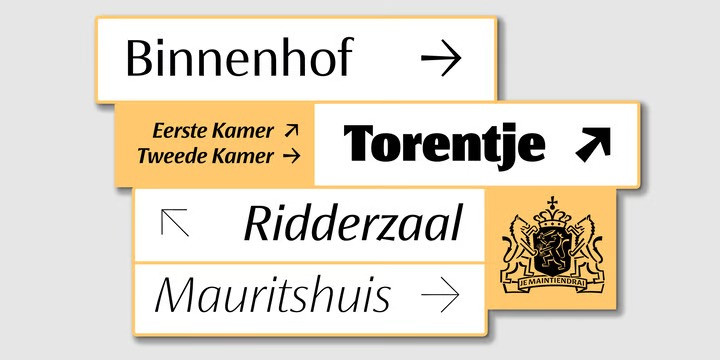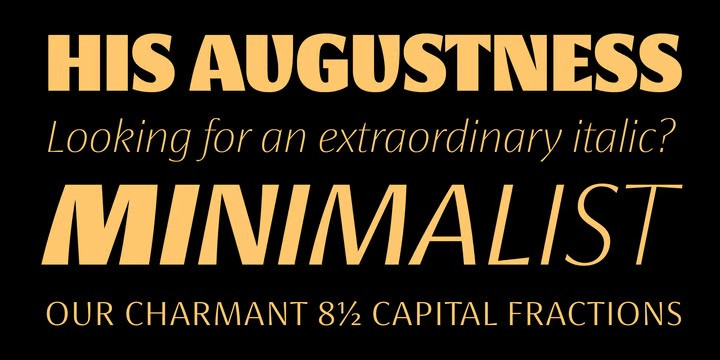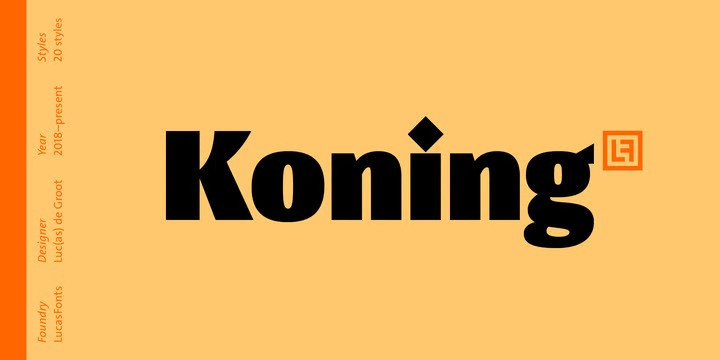
Koning Font
Hello Everyone, introduce our new product, Koning Sans Serif Font Family, Koning transports high-contrast sans serifs into the present. Koning is the Dutch for king. Given the design’s elegance, this name should come as no surprise. It has been recognized with numerous awards: TDC Certificate of Typographic Excellence and Award of Excellence from Communication Arts both in 2018, and Gold from German Design Awards in 2020.